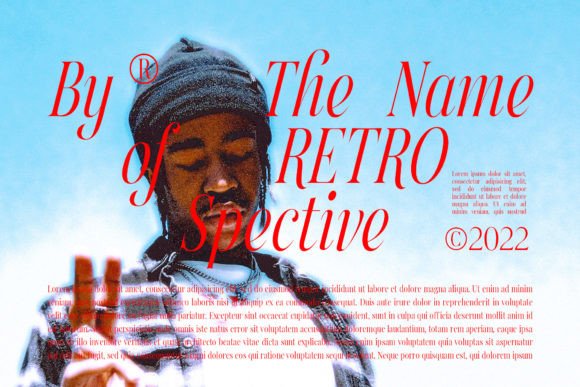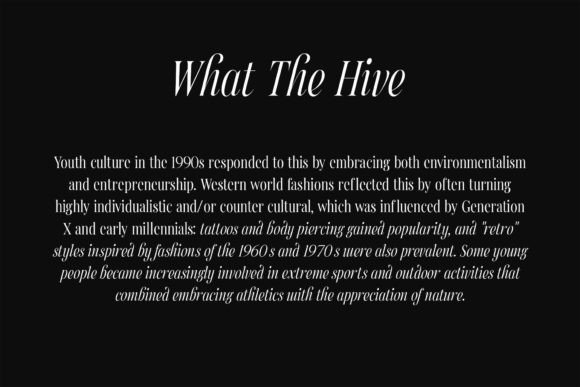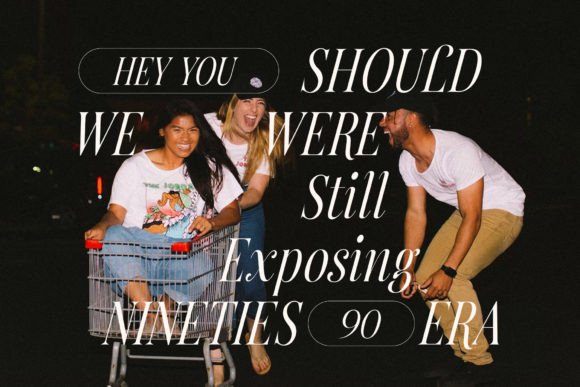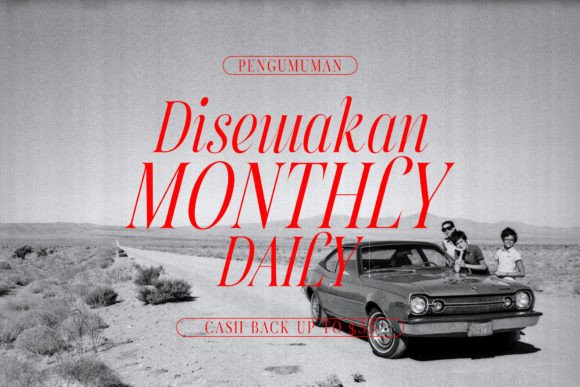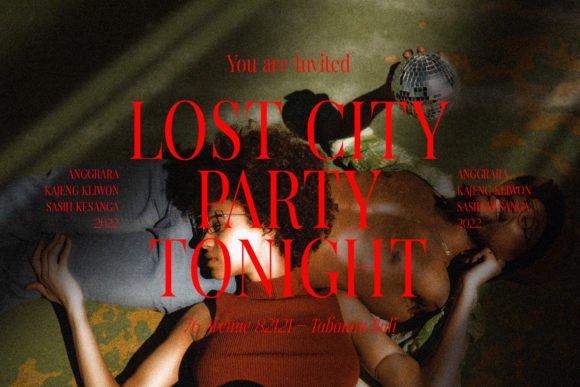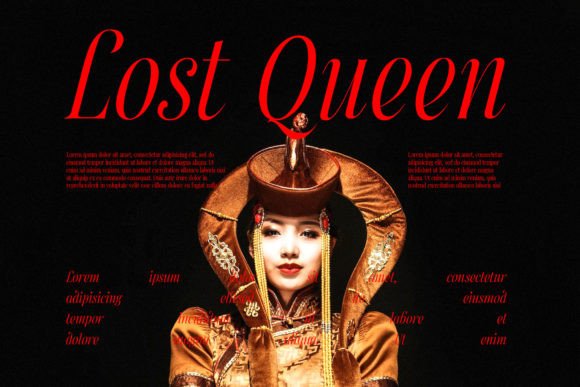
Introduction to Licking Nineties Font Font
Fonts play a crucial role in design, and the Licking Nineties Font font is a typeface that brings both character and versatility to any project. Whether you’re working on a branding project, a website, or a print design, the Licking Nineties Font font offers a unique style that can elevate your work.
Licking Nineties is a chic and modern serif font.
It has a classy, elegant, and stylish look that can be used for logos, branding, invitations, stationery, wedding designs, social media posts, and much more .
Key Features of Licking Nineties Font Font
Why Choose Licking Nineties Font Font?
The Licking Nineties Font font is more than just a typeface – it’s a design tool that helps you communicate your message with style and clarity. Its unique character set and versatile design make it suitable for a wide range of applications, from elegant invitations to bold headlines.
With its carefully crafted letterforms and balanced proportions, the Licking Nineties Font font ensures readability and visual appeal across all mediums.
What makes Licking Nineties Font font special?
The Licking Nineties Font font stands out with its unique design, exceptional readability, and versatility across various design applications.